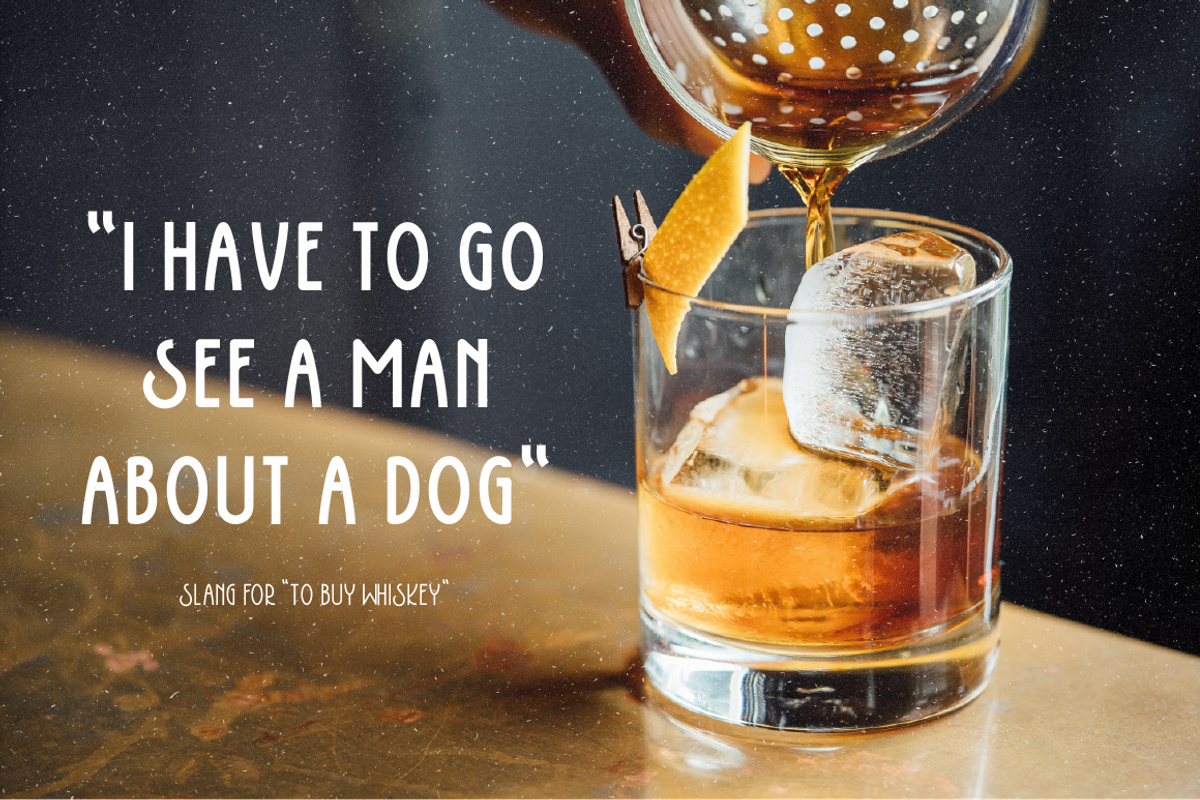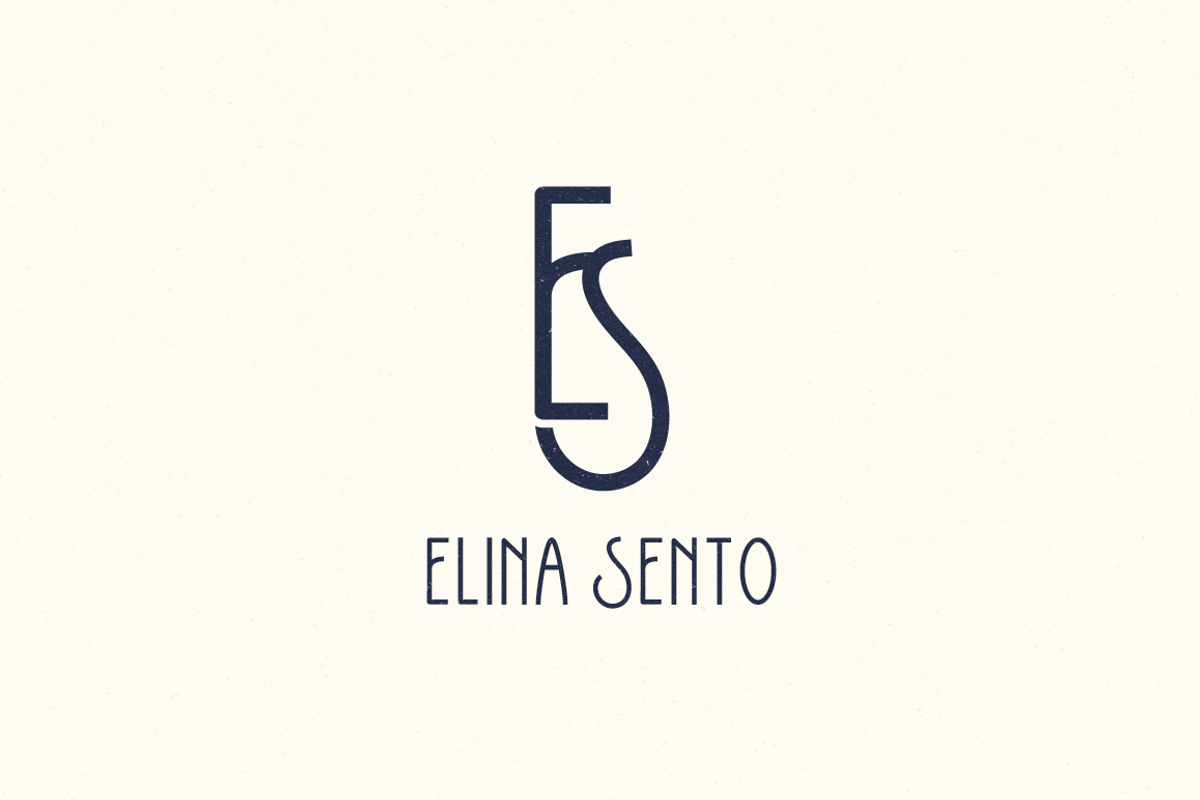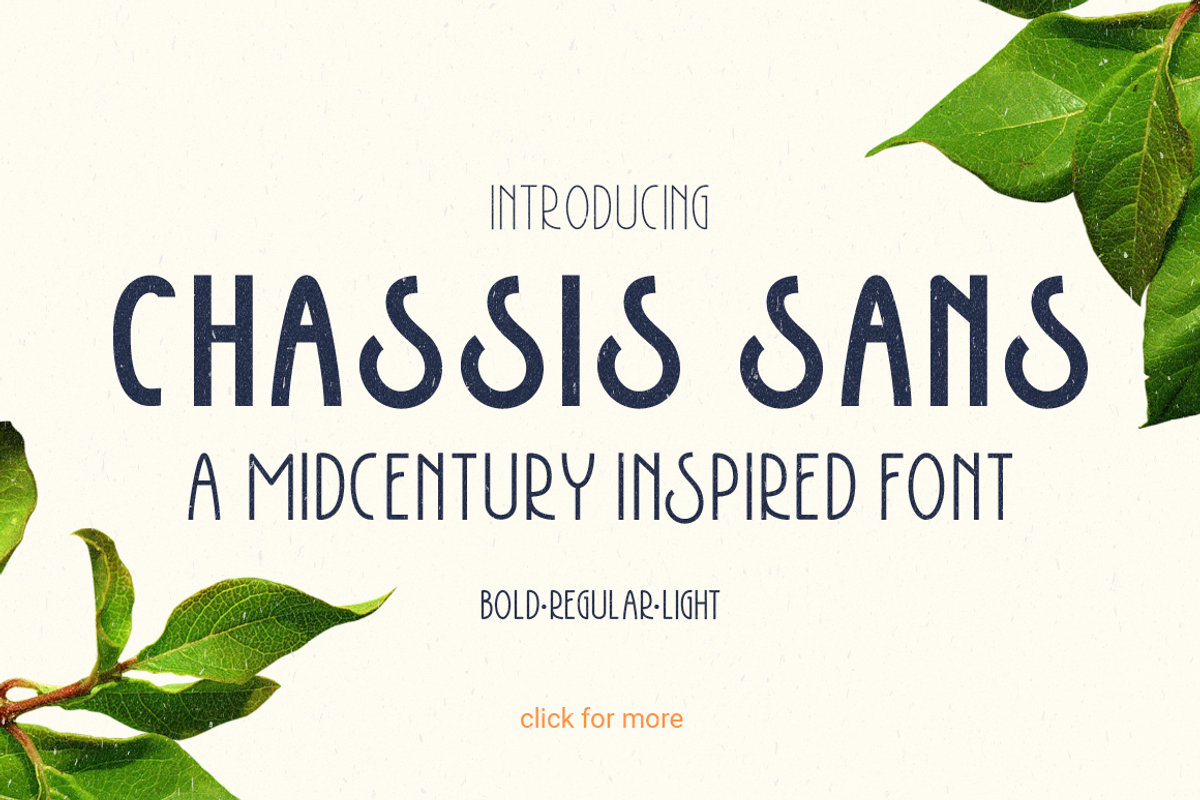
Chassis Sans Font Family
Chassis brings a retro touch to your designs, without compromising the modern day simplicity of a well structured typeface. It's inspired by 1920's typography, and it's been an absolute pleasure to work on. I vision Chassis as part of any project that needs that extra something to make it stand out. You can use Chassis for anything from logo design, brochures, catalogues, print, web, business cards, personal branding and many many more.
- Chassis Sans Family comes in three different weights : Light, Regular and Bold
Chassis Sans Font Family by Ilustaria fits naturally into Branding, posters, packaging, typography.